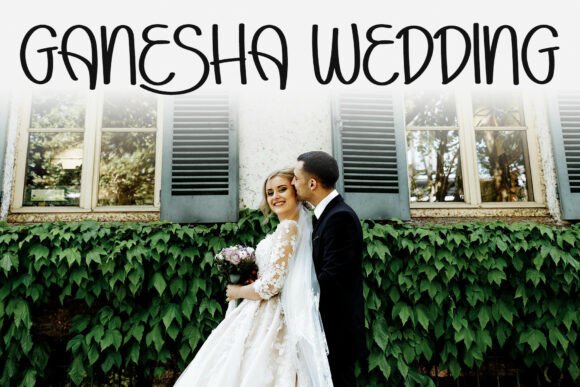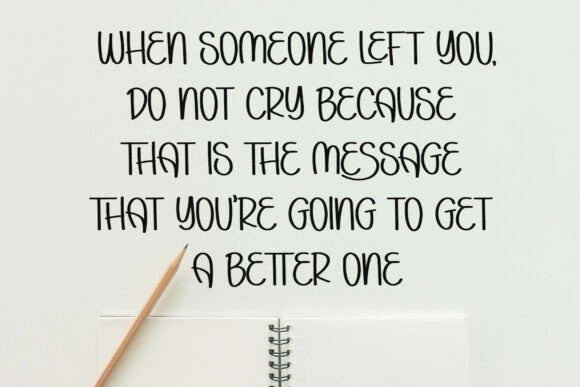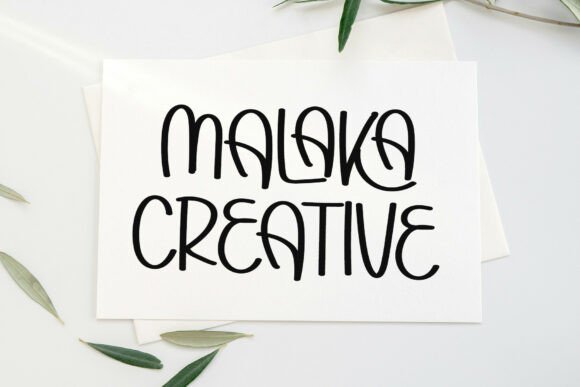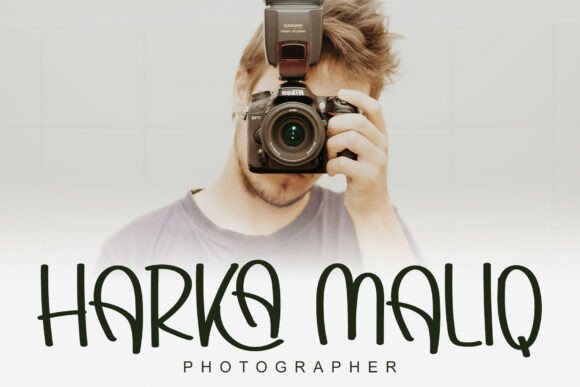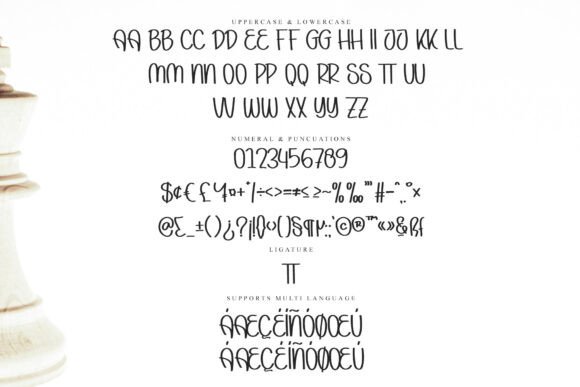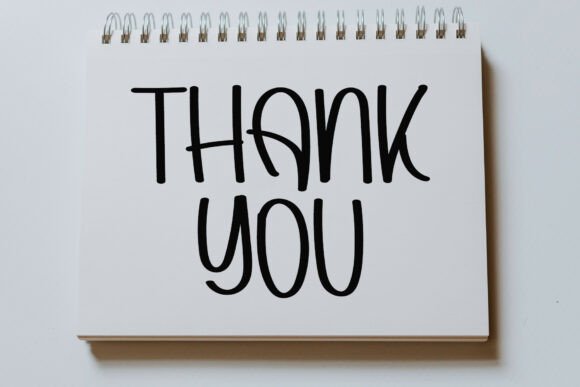
Introduction to Funky Lashes Font
Funky Lashes is a stylish and modern handwritten, suitable for a wide spectrum of applications.
From greeting cards to headlines, branding and packaging, this font will guarantee a happiness touch to each of your creations This font is PUA encoded which means you can access all of the amazing glyphs and ligatures with ease.
Key Features of Funky Lashes Font
Why Choose Funky Lashes Font?
Funky Lashes Font offers exceptional quality and versatility, making it a valuable addition to your design toolkit. Whether you’re creating for personal projects or commercial use, Funky Lashes Font delivers professional results.